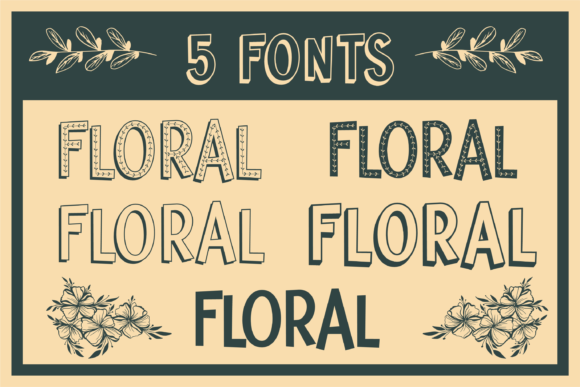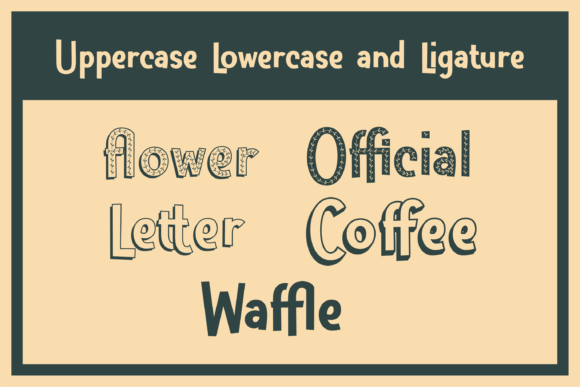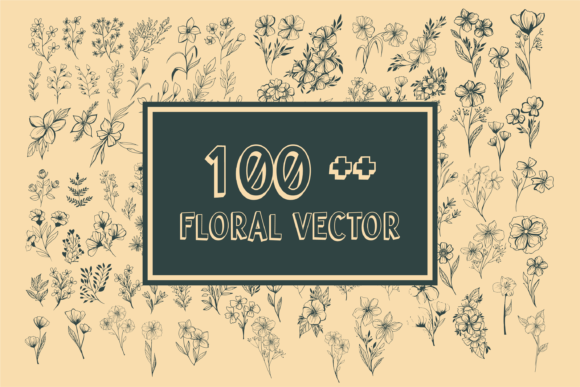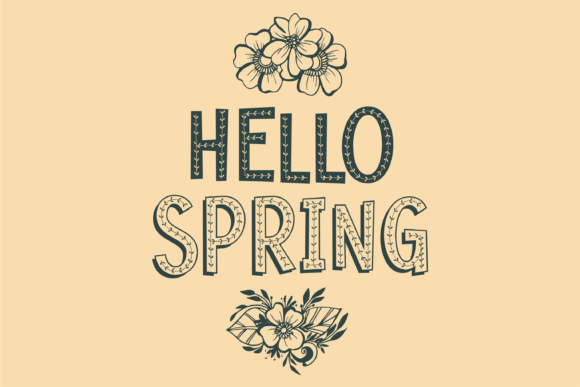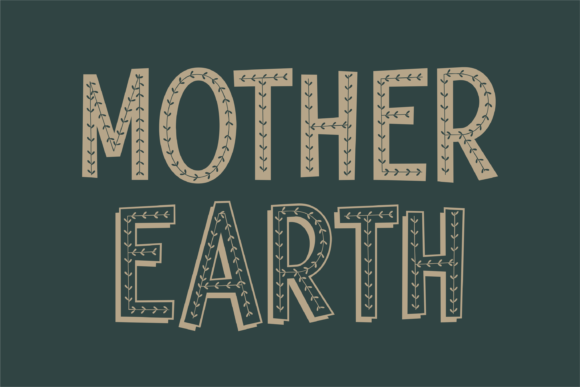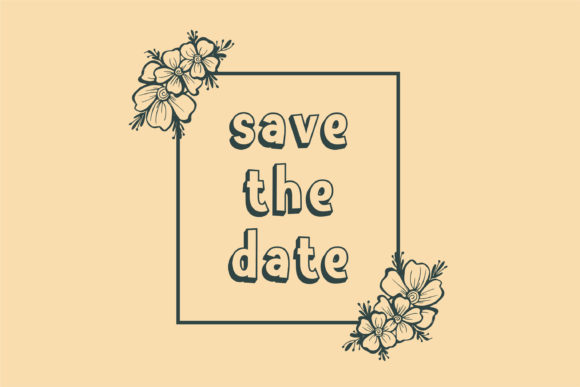
The Charm of Floral Font: Elevating Your Designs with a Dainty Touch
I’ll never forget the time I was working on a wedding invitation project, and my client asked for a font that was both elegant and whimsical. I scoured the internet, tried out countless fonts, but nothing seemed quite right. That was until I stumbled upon Floral Font. With its delicate, outlined design, it added a touch of magic to the invitation, and my client was thrilled. If you’re a designer, crafter, or creative hobbyist looking for a unique font to elevate your projects, you’re in luck! In this article, we’ll dive into the world of Floral Font and explore its features, uses, and alternatives.
An Honest Review of Floral Font
- ✨ Unique and eye-catching design that’s perfect for making a statement
- ✅ Easy to read and understand, even at smaller font sizes
- 🎨 Versatile and can be used for a wide range of projects, from invitations to branding
- 💕 Delicate and elegant, with a touch of whimsy
While Floral Font is a stunning addition to any design, there are a few things to keep in mind:
- 🤔 May not be suitable for body text or longer blocks of text, as it can be a bit ornate
- ⚠️ Limited availability of certain characters or glyphs, which can be a limitation for some users
The Story Behind Floral Font
While the origins of Floral Font are shrouded in mystery, it’s clear that the designer was inspired by the beauty of nature and the elegance of traditional typography. Imagine a designer, sitting in a lush garden, surrounded by flowers and greenery, and tasked with creating a font that captures the essence of this serene environment. The result is Floral Font, a delicate and charming font that’s perfect for adding a touch of whimsy to your designs.
| Font Name | Floral Font |
| Author | Toko Laris Djaja |
Q: What type of projects is Floral Font best suited for?
A: Floral Font is perfect for projects that require a touch of elegance and whimsy, such as invitations, branding, and packaging.
Q: Can I use Floral Font in combination with other fonts?
A: Absolutely! Floral Font pairs well with a variety of fonts, so feel free to experiment with different combinations to find the perfect look for your project.